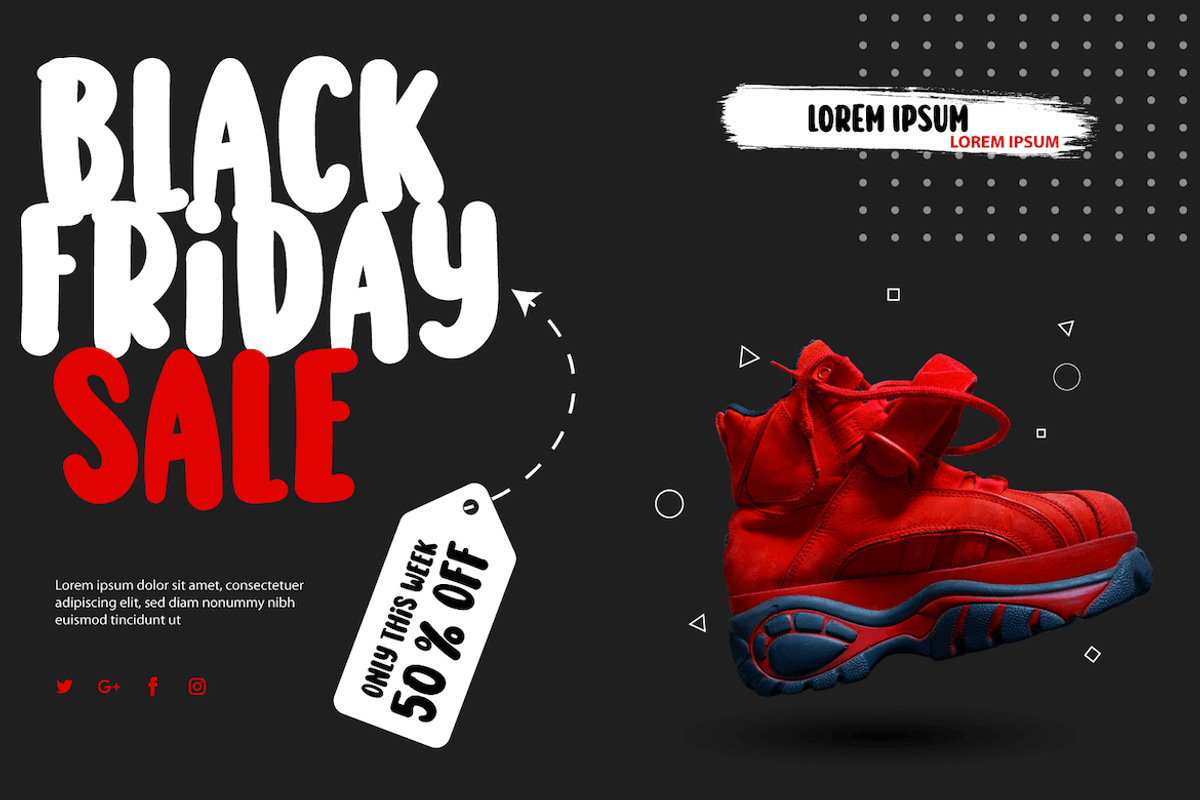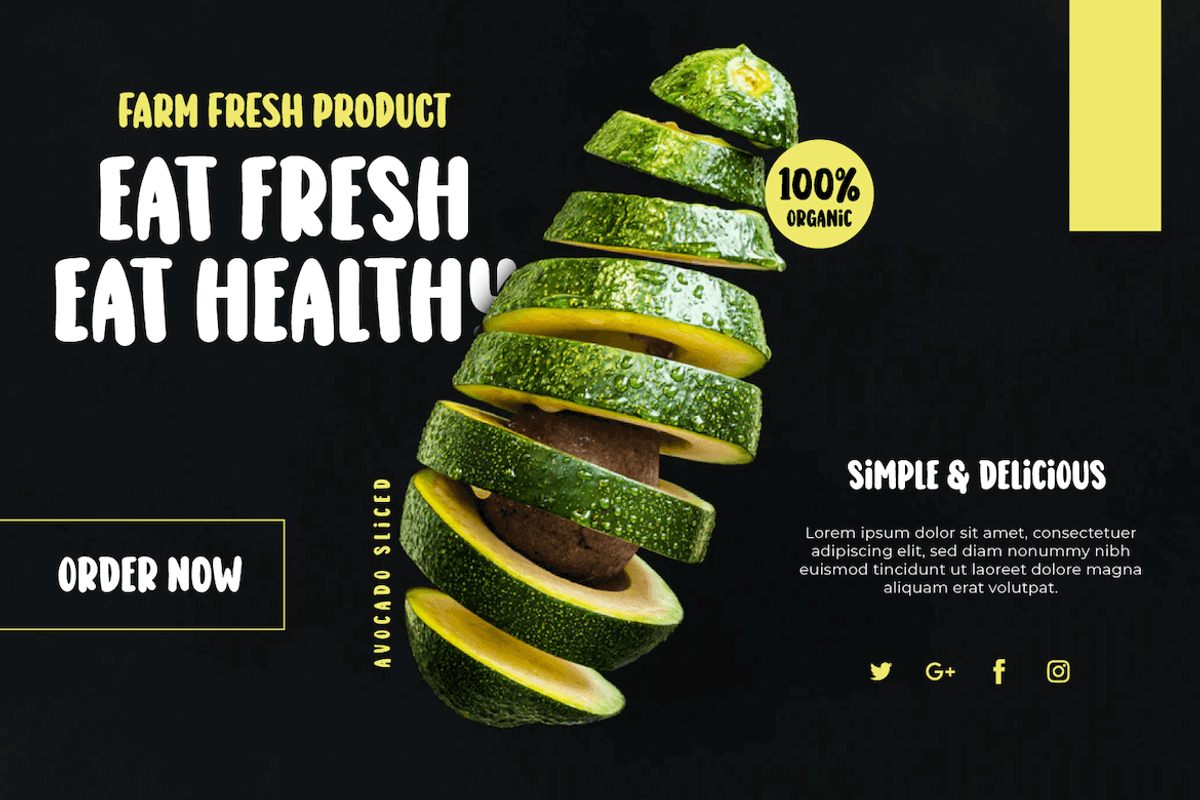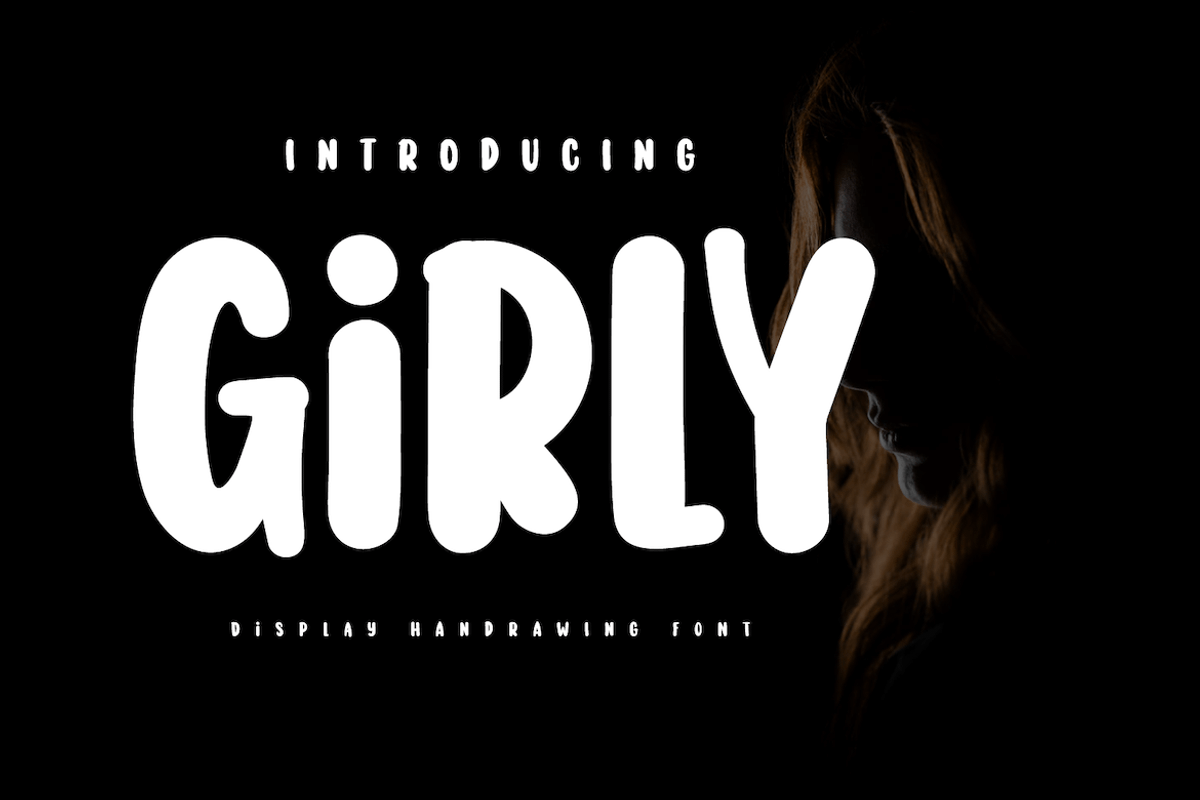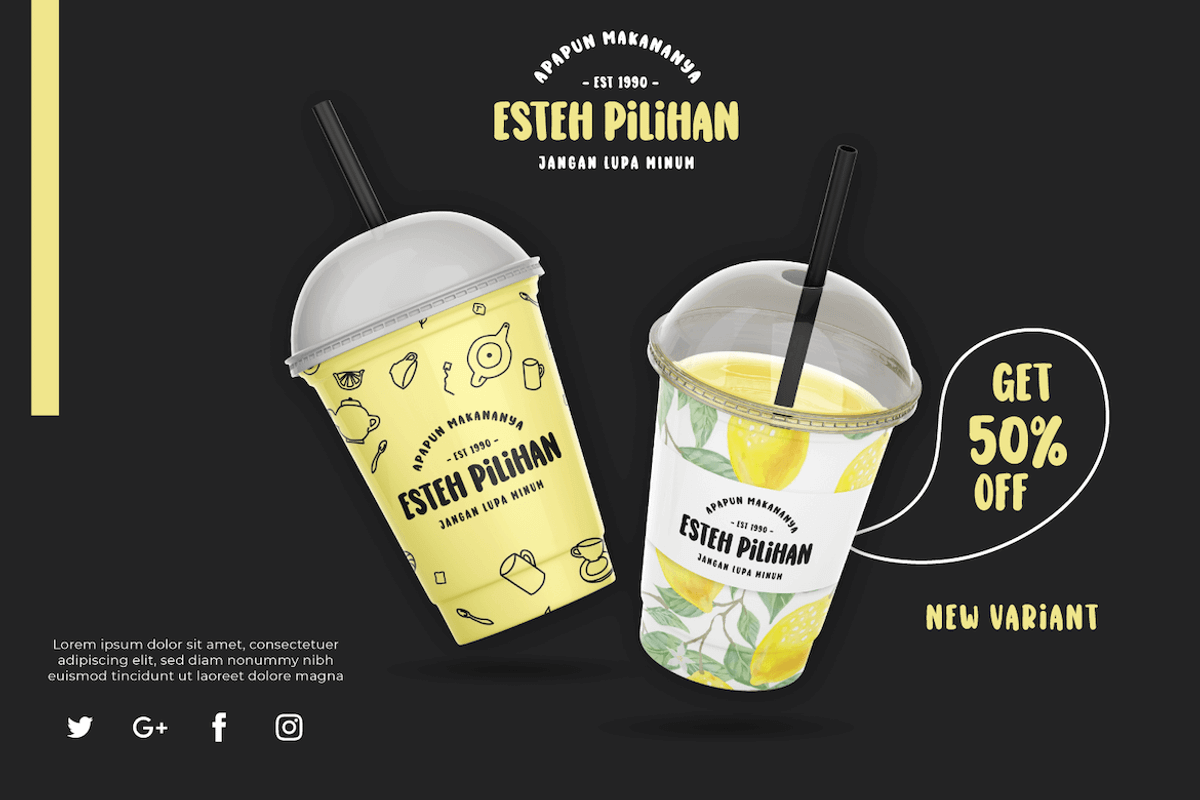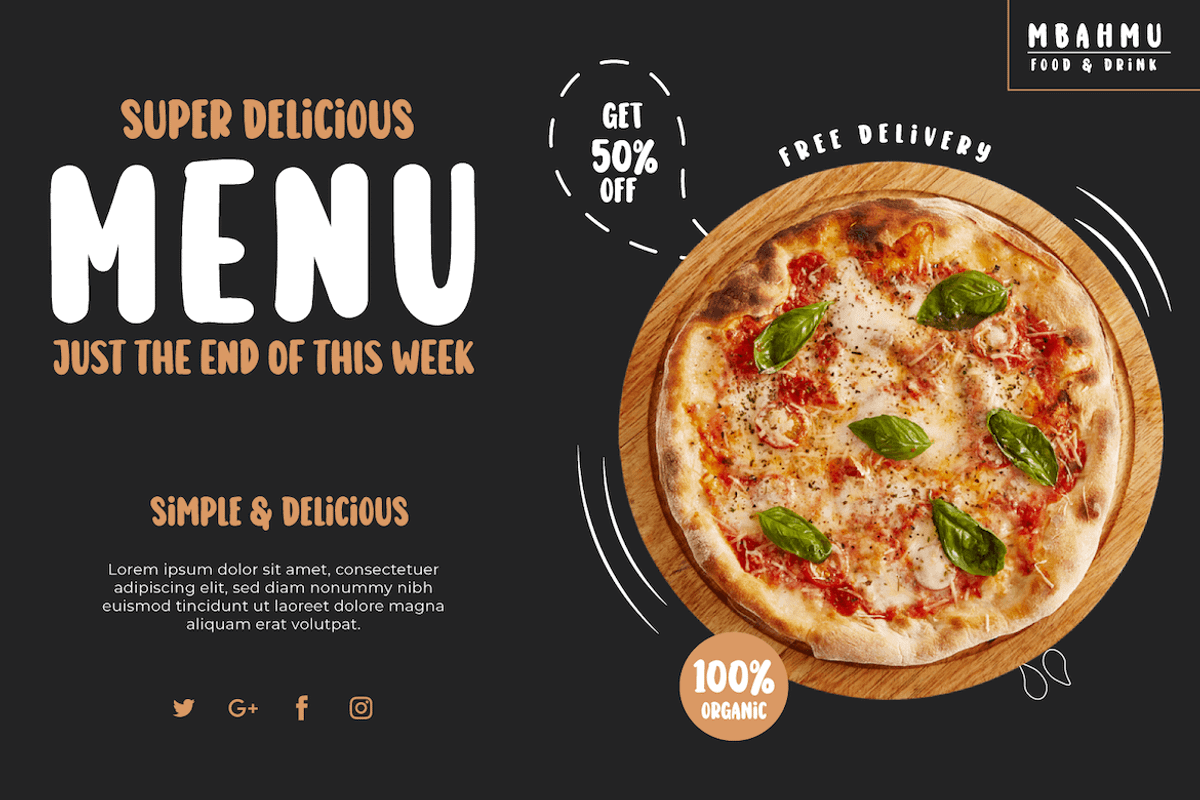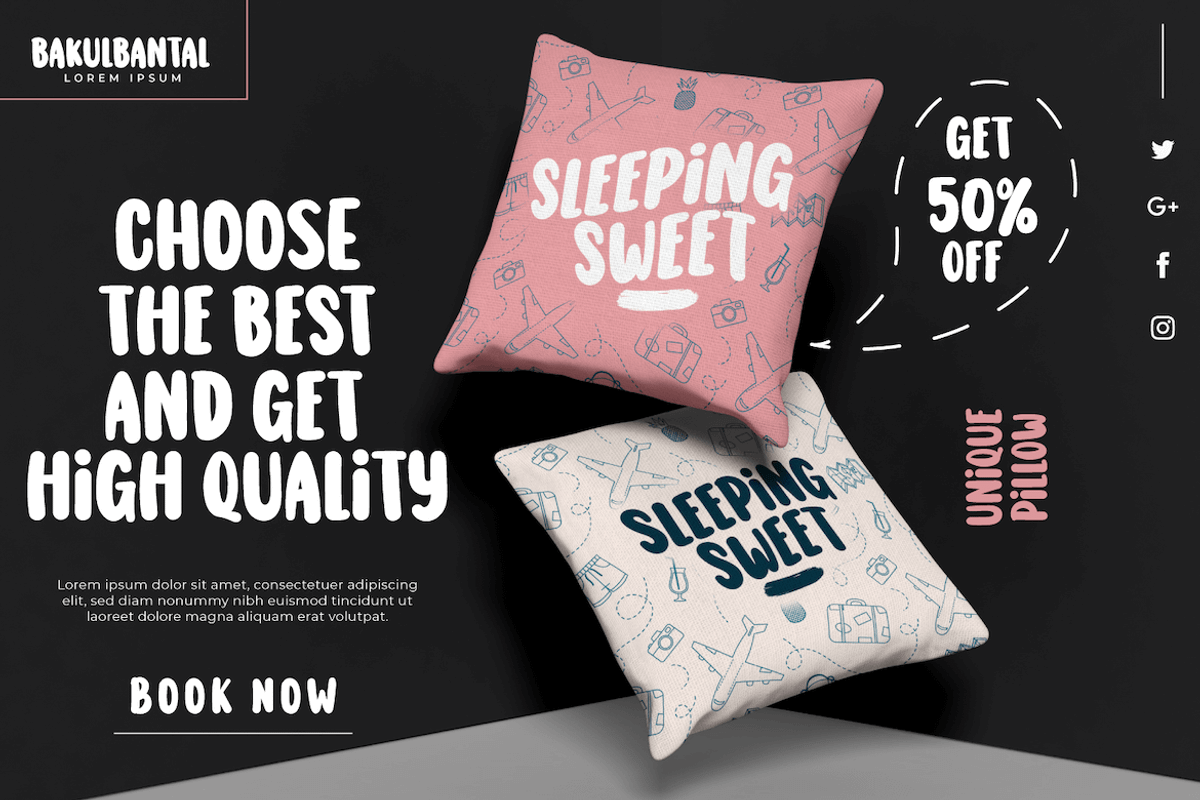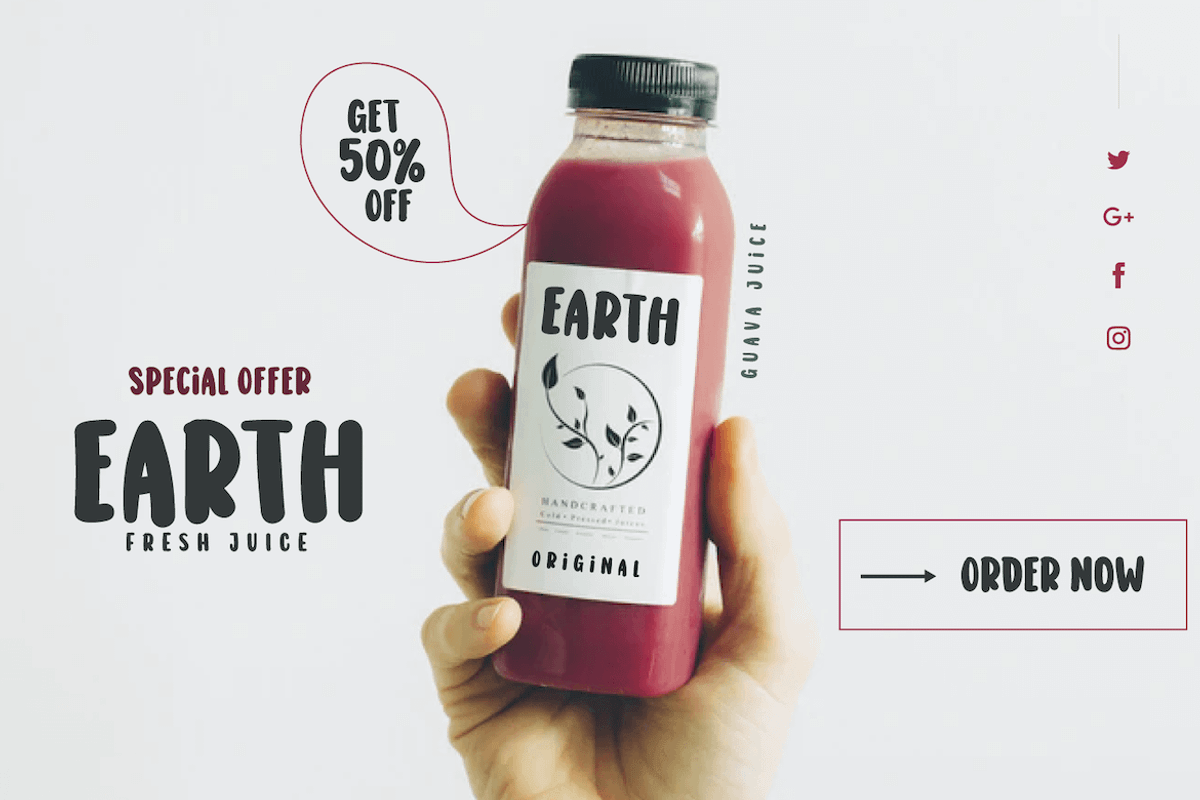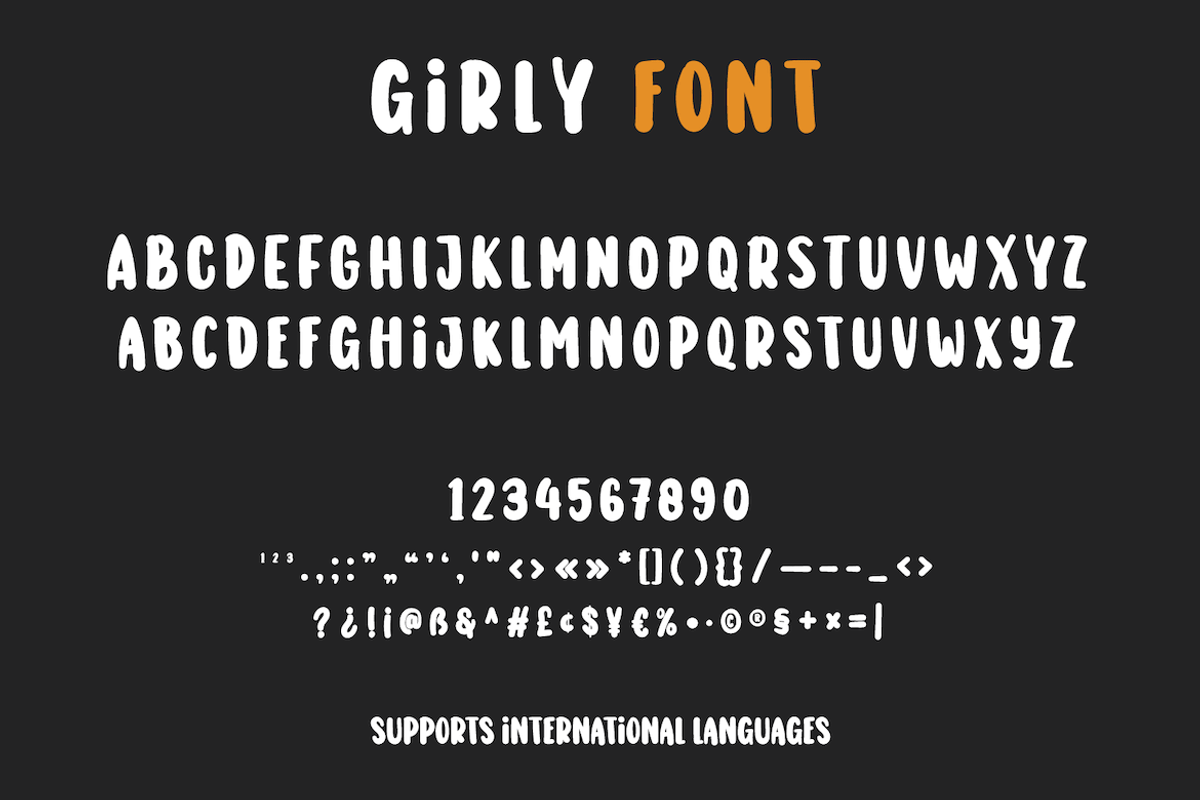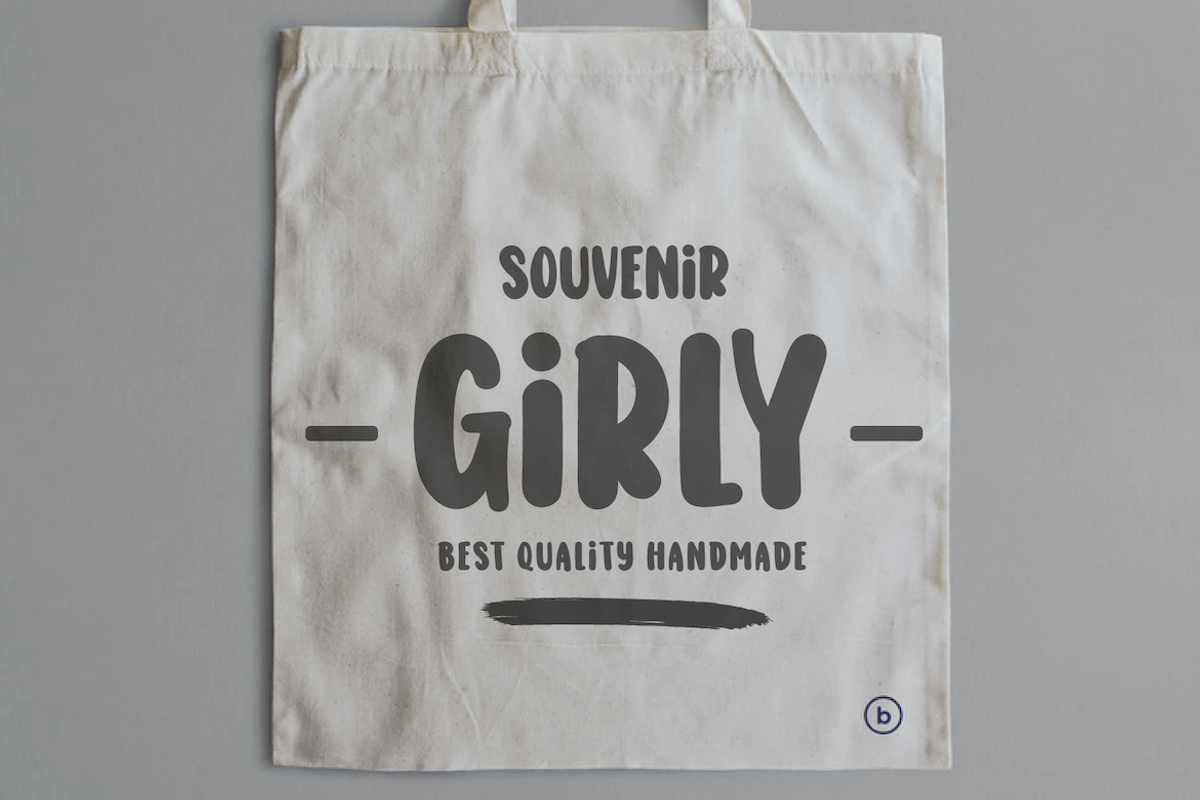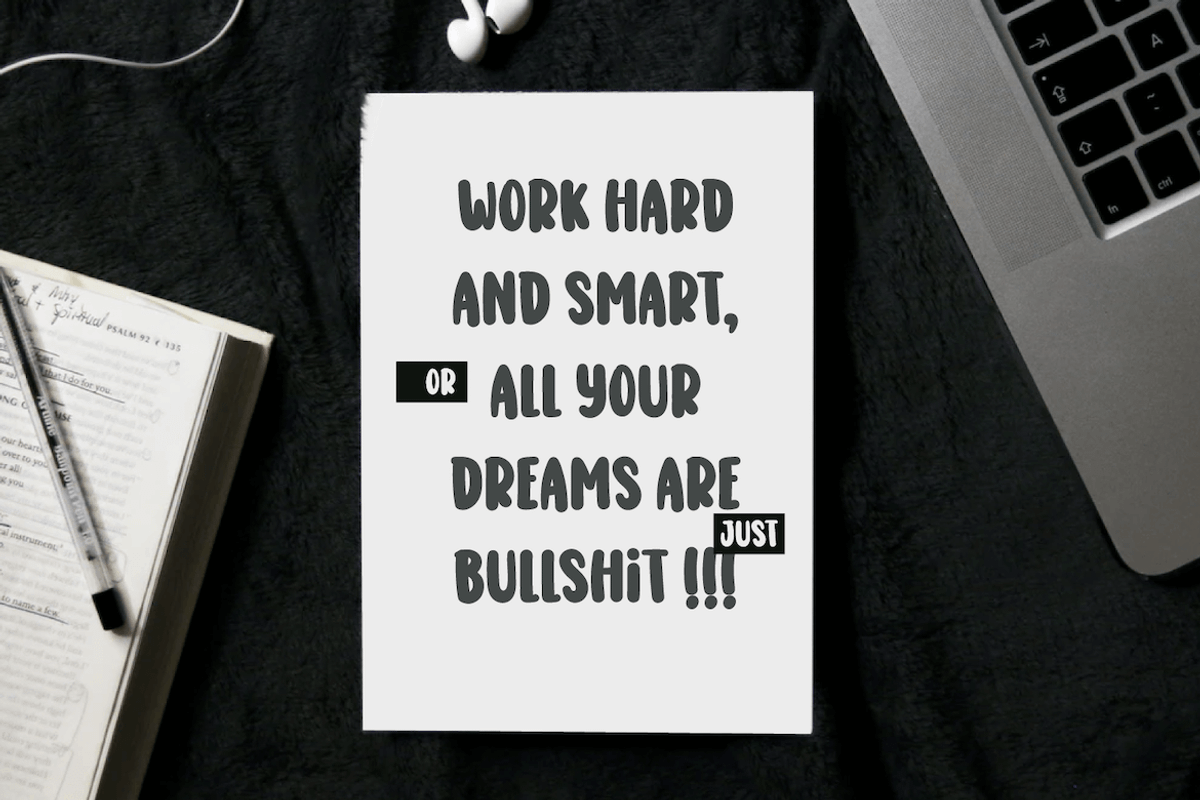
Girly
Introducing our newest font called Girly, this font is designed with a bold, strong, and unique handwriting theme, so that when used it can create a relaxed, elegant and charming impression when applied to your design project so that it can give the viewer a distinctive impression.
Start using this font to create an ideal and balanced design for each of your projects.
In addition, this font is designed with a natural handwritten touch that is refined to create portions and compositions to suit your needs. So this font is perfect for crafts, children’s writing, adventure posters, food banner titles, wedding invitations, product packaging logos, quotes, social media page covers, furniture banner headlines, book covers, and much more.